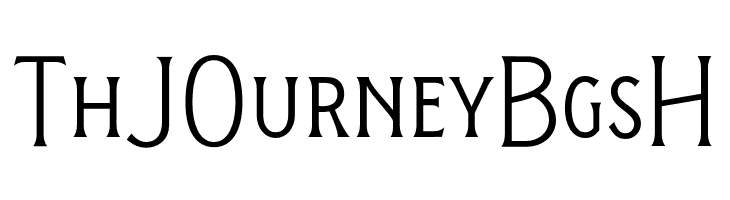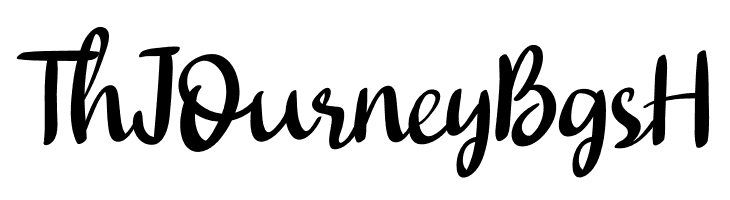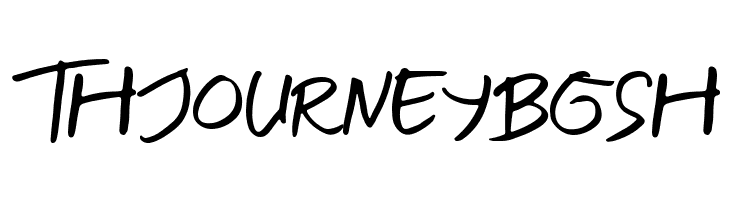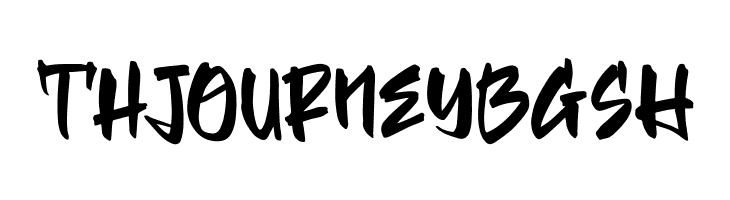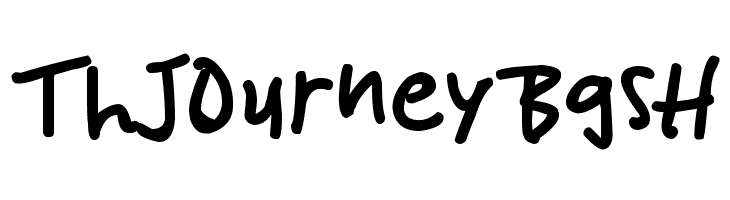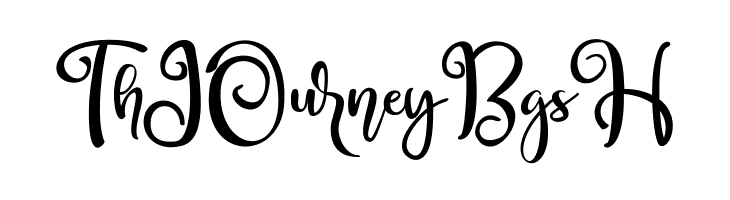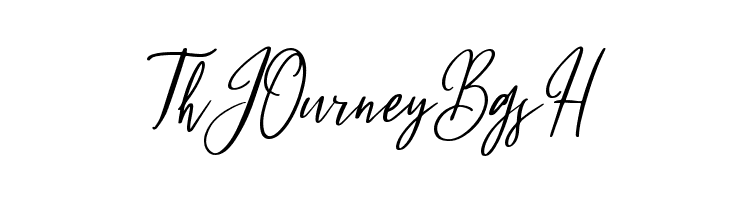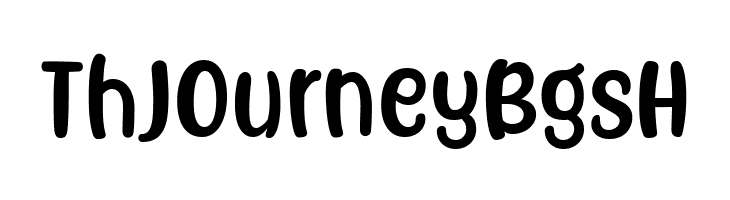
A light, condensed font with a modern yet vintage feel, featuring elegant and refined strokes.
A bold, expressive handwritten font with fluid strokes and a modern flair.
A dynamic brush-style font with fluid, hand-drawn strokes.
A bold, dynamic handwritten font with thick strokes and an energetic flow.
A playful, bubbly font with rounded characters and a whimsical style.
A playful, bold font resembling childlike handwriting with thick, consistent strokes.
A playful, cursive font with elegant loops and swirls.
A playful and whimsical font with bold, rounded forms and decorative elements.
An elegant script font with fluid, cursive strokes and ornate uppercase letters.
A playful, rounded font with a bold and friendly appearance.